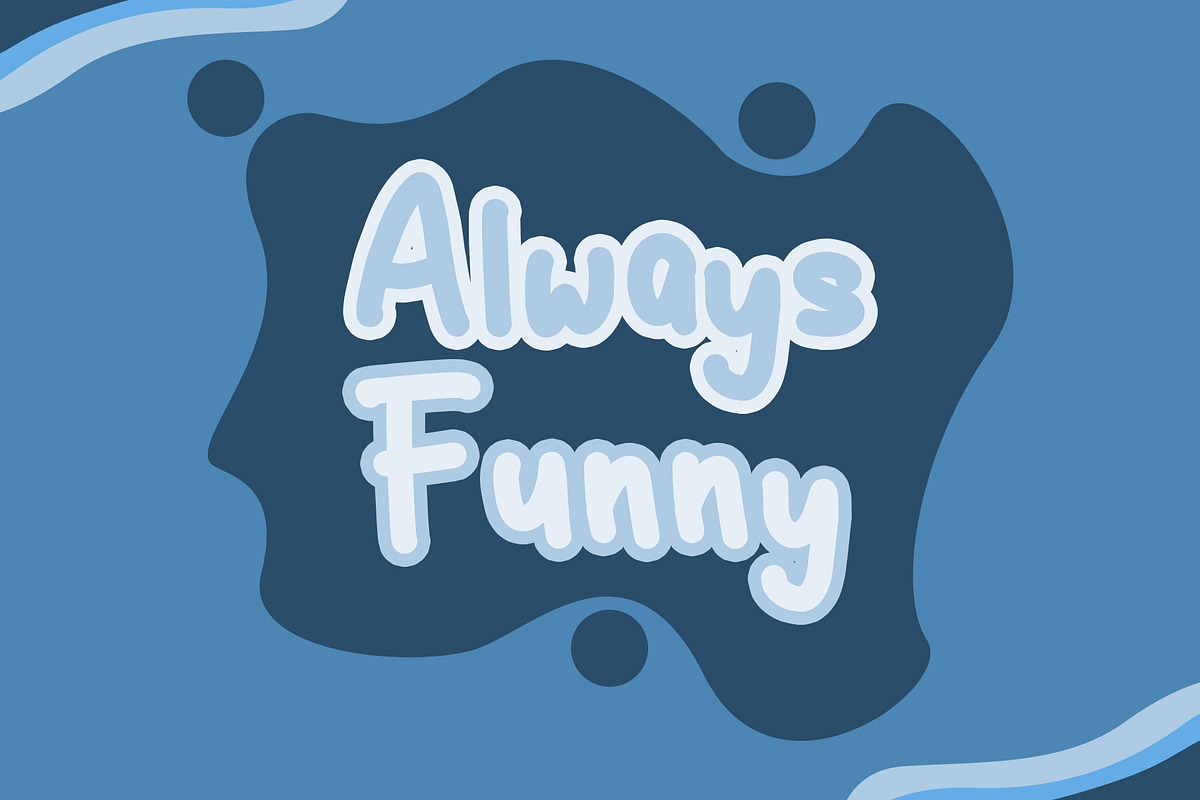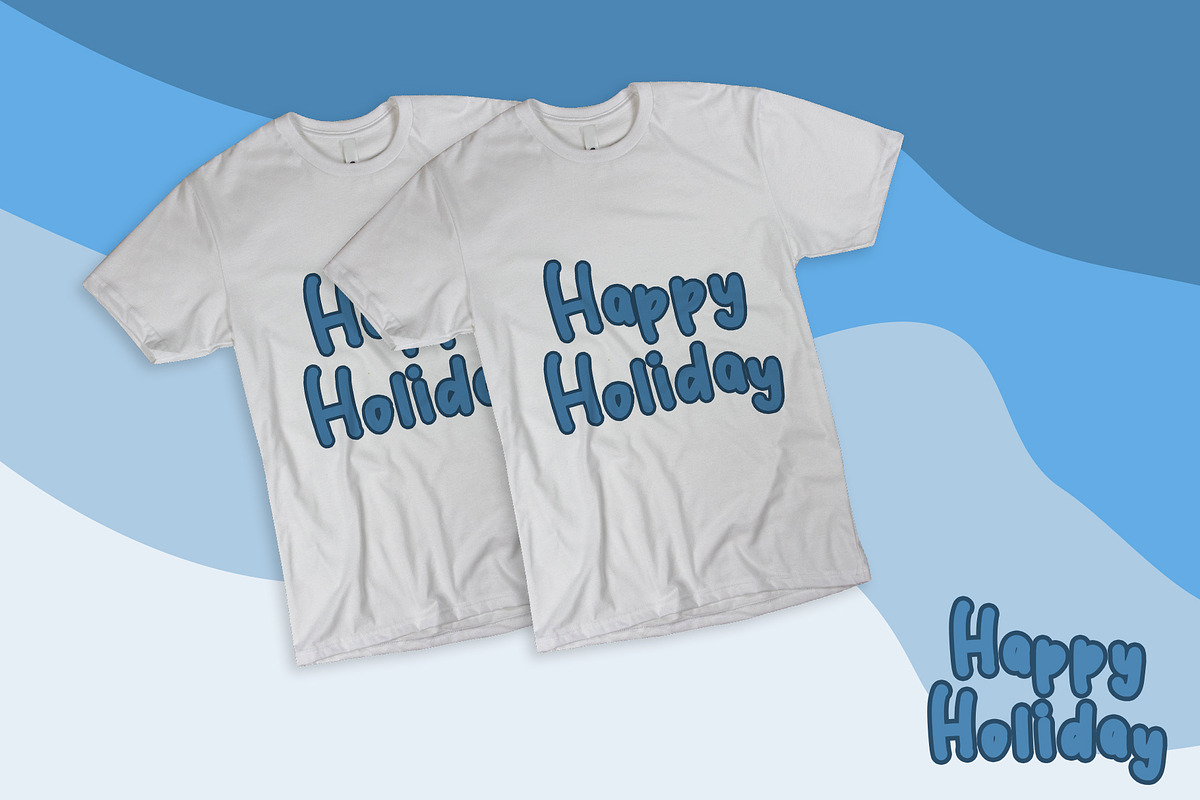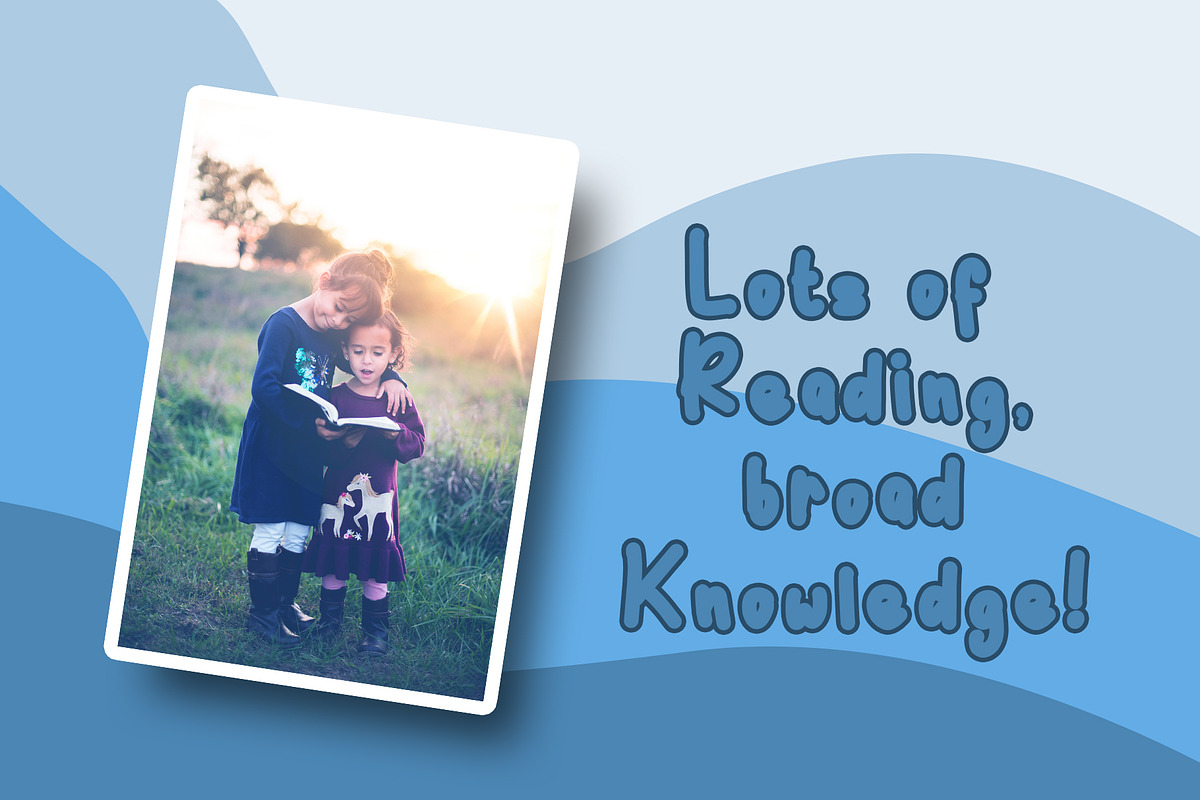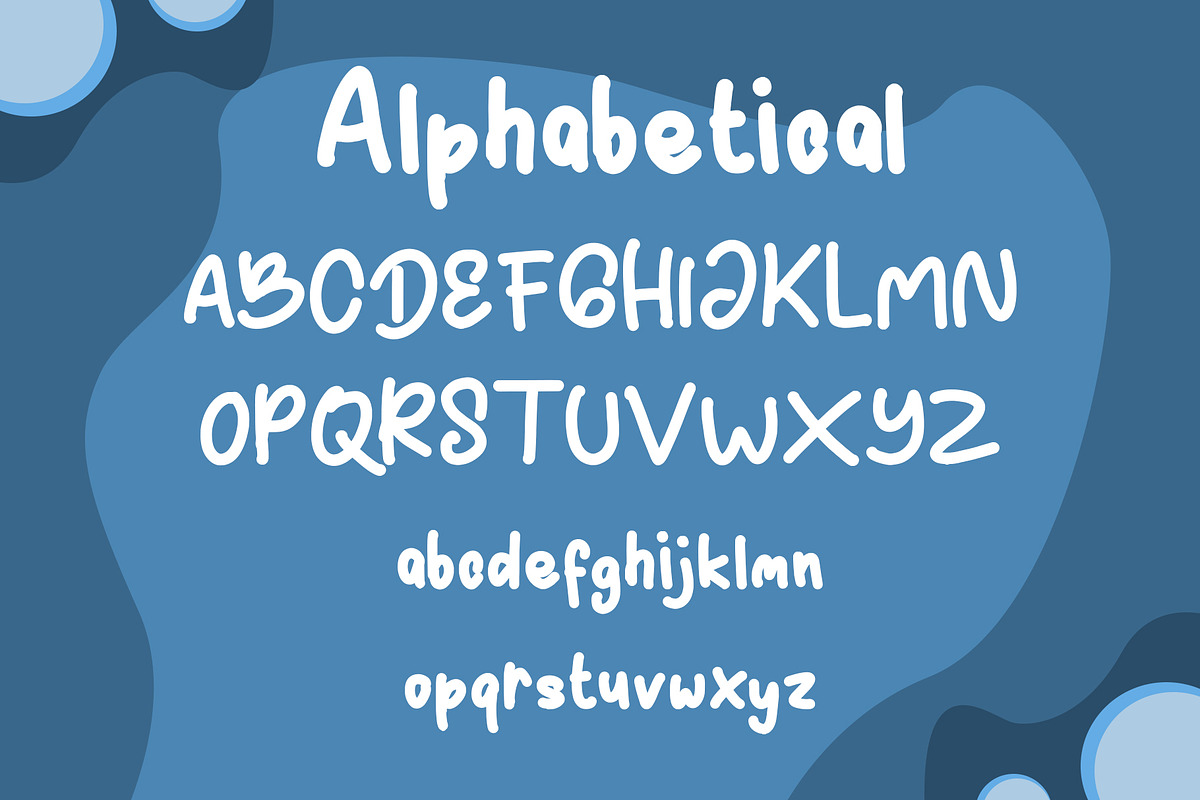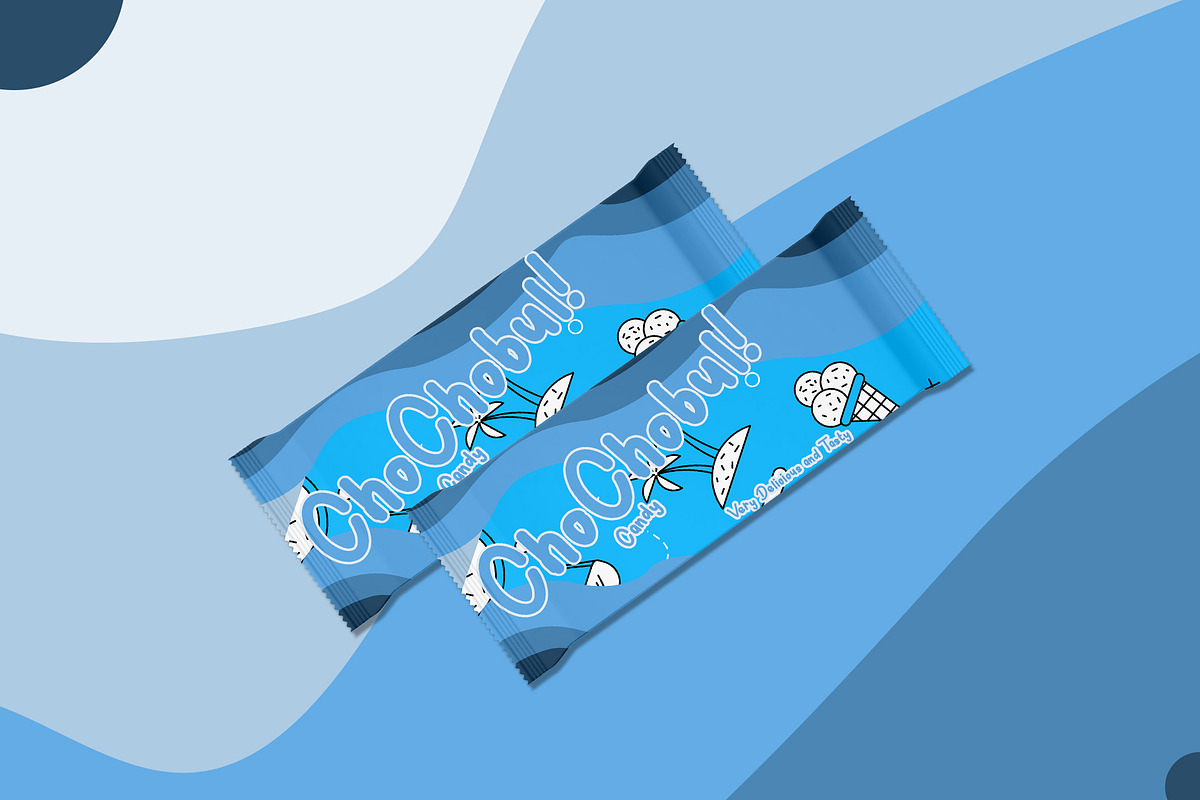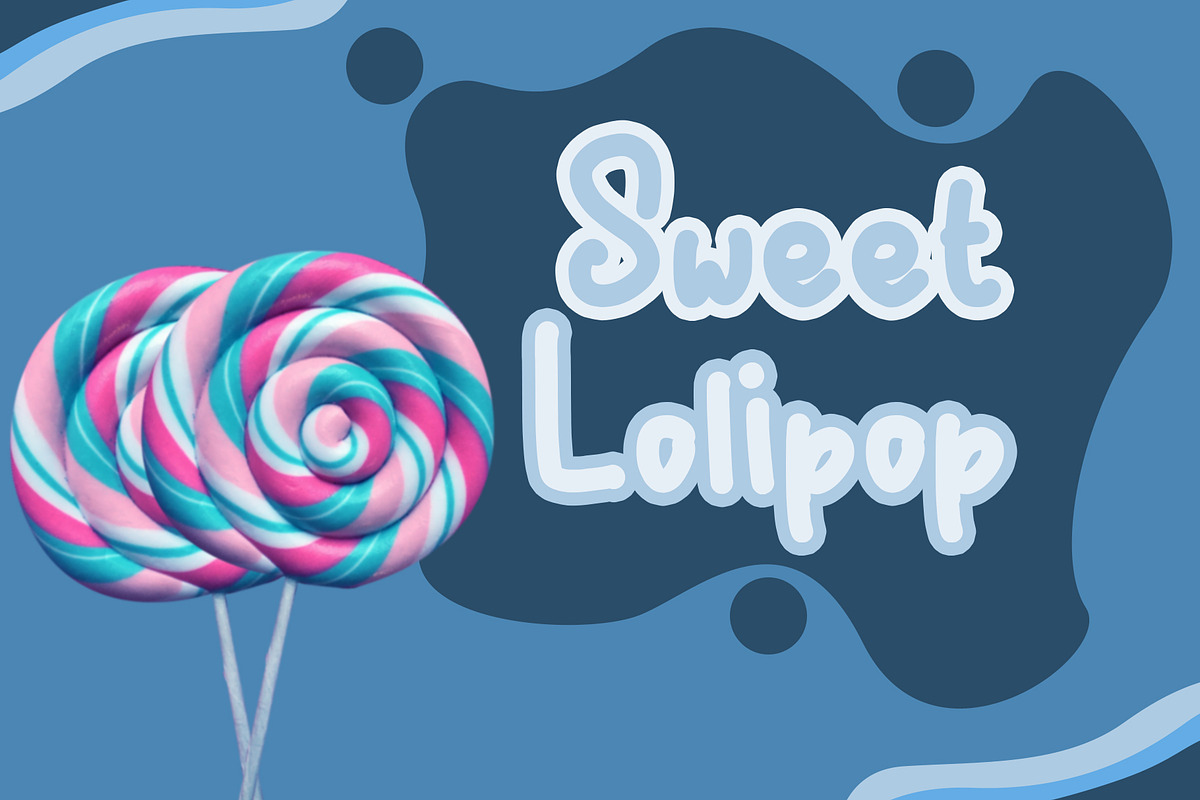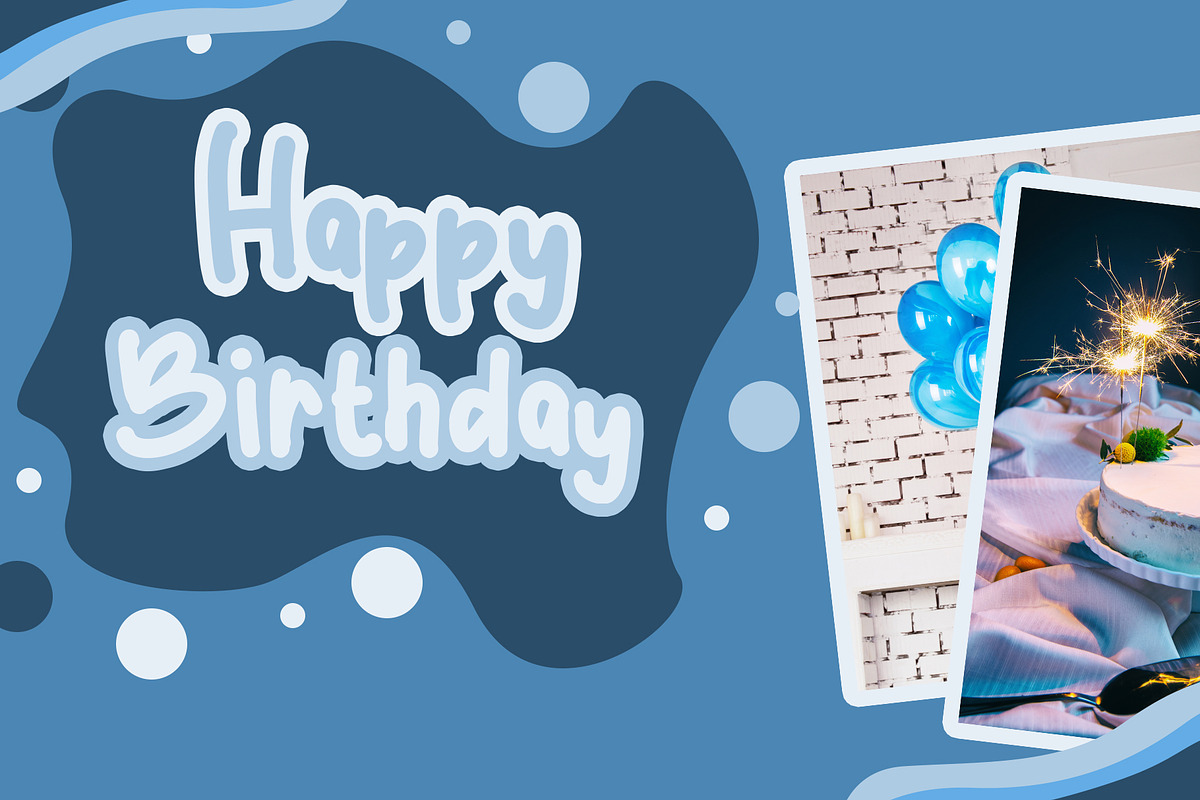
JellyBean || Cute & Playful Fonts
Introducing JellyBean - Cute & Playful Fonts
JellyBean is the perfect font for all your fun designs. The main font file is equipped with ordinary characters & multilingual support. Everything is made with the same pen so you can be sure they will work well together! It is suitable for you to use in making t-shirt design, quote, label, packaging, logo type, or long writing.
Why JellyBean || Cute & Playful Fonts is worth a look
JellyBean || Cute & Playful Fonts by Analogous fits naturally into Branding, posters, packaging, typography.